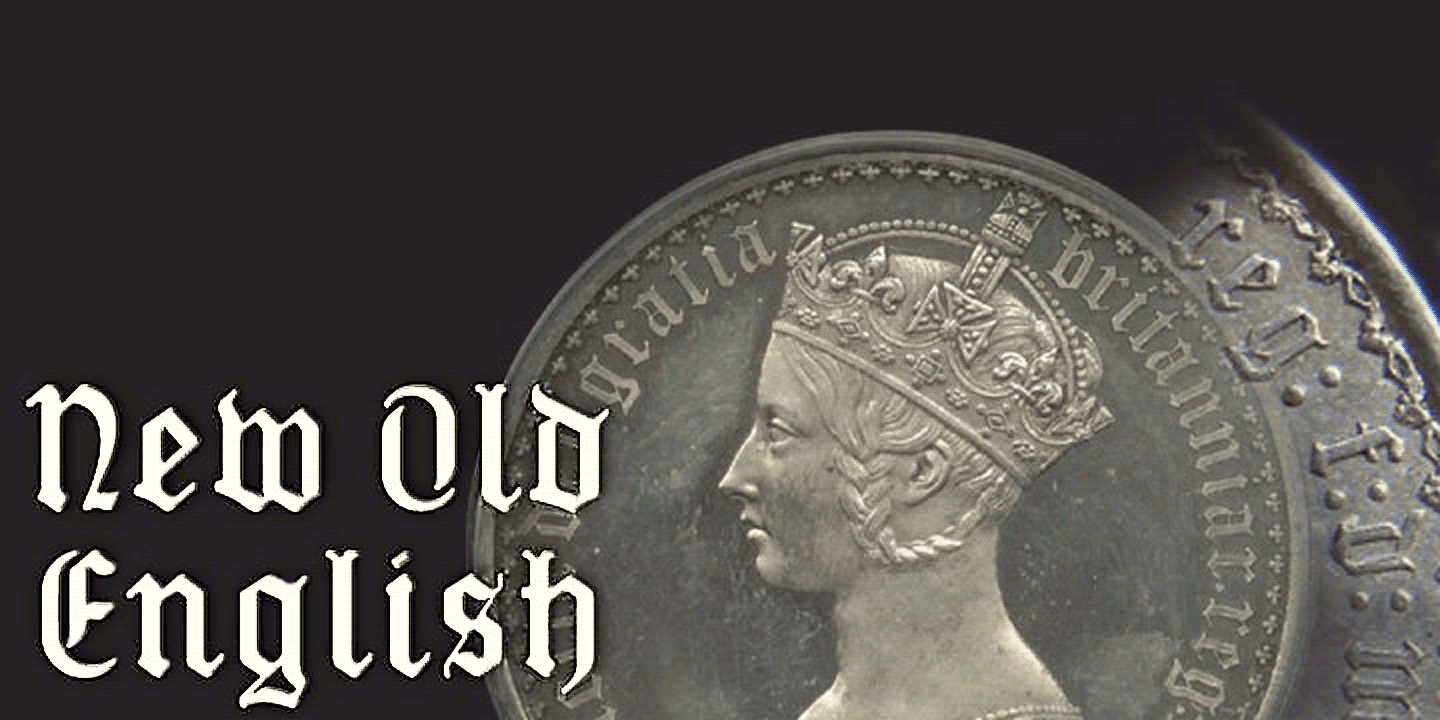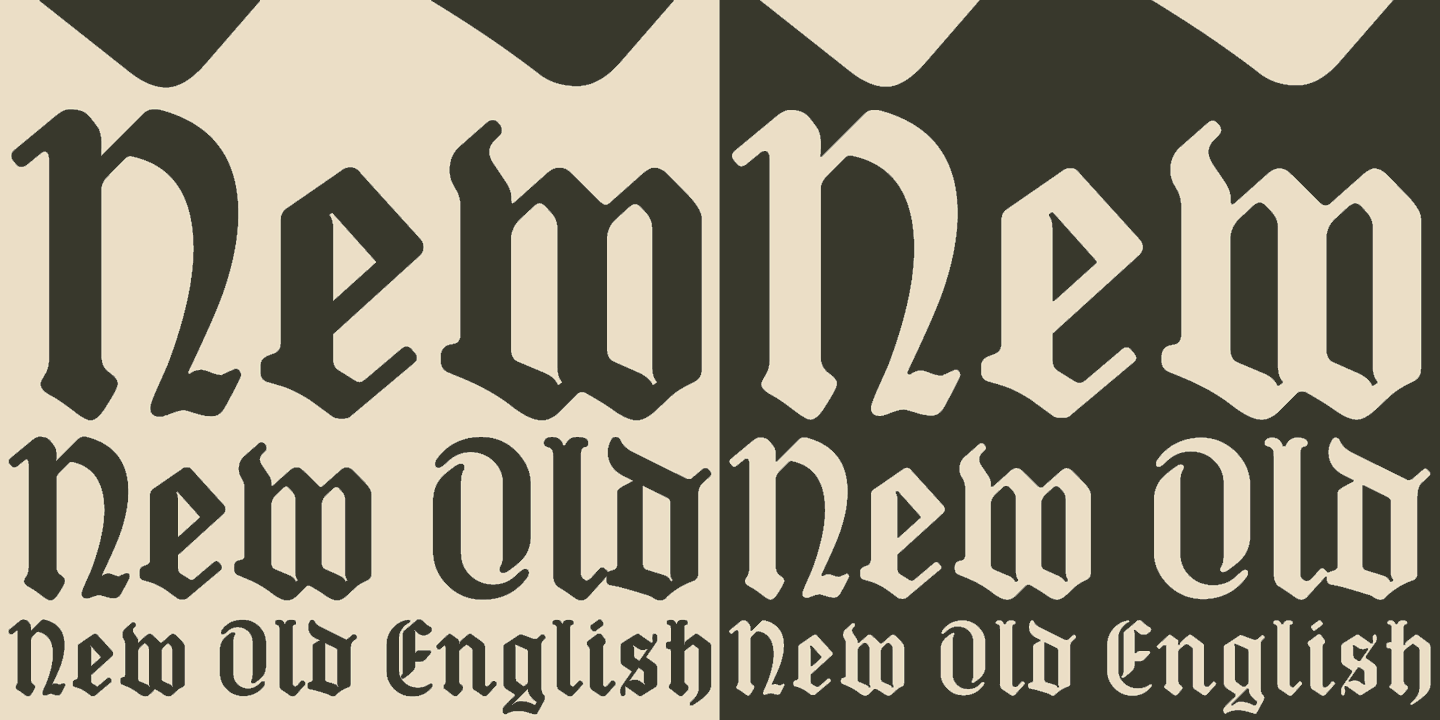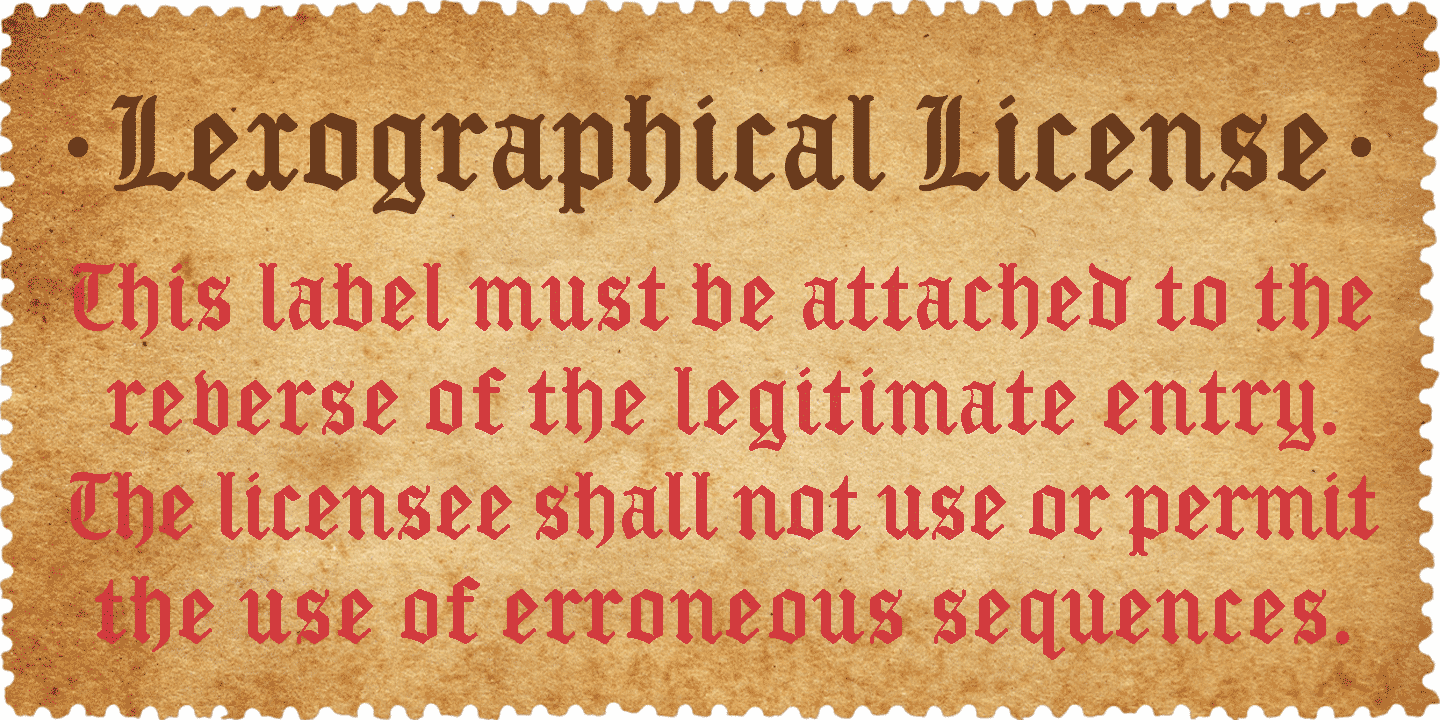
New Old English
Font Family by K-Type
New Old English was inspired by two Victorian coins, the gothic crown and gothic florin, which featured a gothic script lowercase with quite modern-looking, short ascenders and descenders fitting snugly around the queen's head or heraldic motif.
The font is an attempt to capture the round-cornered softness of the die-struck lowercase blackletter on the coins. There are thicker hairline strokes than on normal Old English, a less sharp, warmer feel than lettering scripted with a pen, and circular instead of rhombic punctuation. To increase harmony and homogeneity between the cases, the uppercase is narrower and simpler than is customary, without the excessive width or antiquated flamboyance of the traditional blackletter.